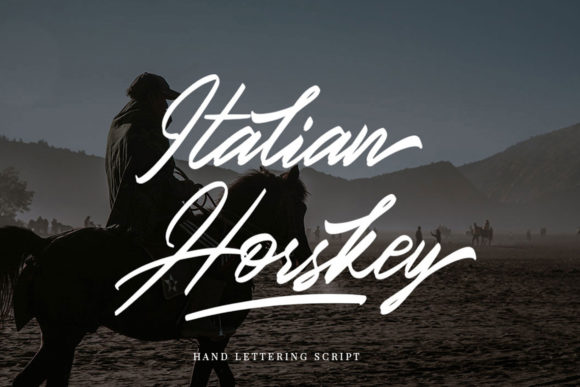
Journey into the realm of exquisite typography with Italian Horskey, a script font that exudes elegance and charm. Meticulously crafted by Mindtype Co., this font is a masterpiece that will transform your designs into works of art. Whether you're creating wedding invitations, heartfelt thank you cards, or eye-catching posters, Italian Horskey will add a touch of sophistication and personality to your creations.
Unleash your creativity and let your words dance across the page with Italian Horskey. Its graceful curves and flowing lines evoke a sense of romance and whimsy, making it the perfect choice for capturing life's special moments. Imagine your wedding vows, written in the enchanting script of Italian Horskey, becoming a cherished keepsake that you'll treasure forever.
Step into the world of professional design with Italian Horskey, the font that commands attention and leaves a lasting impression. Create business cards that exude confidence and make a statement. Design logos that stand out from the crowd, embodying the essence of your brand. Craft posters that captivate audiences, conveying your message with undeniable impact.
With Italian Horskey, the possibilities are endless. Its versatility knows no bounds, allowing you to explore a wide range of design styles and themes. Whether you're aiming for a classic and timeless look or a modern and edgy aesthetic, Italian Horskey will effortlessly adapt to your vision.
Take your designs to new heights with Italian Horskey, the font that ignites inspiration and elevates your creativity. Experience the joy of crafting designs that resonate with your audience, leaving an indelible mark on their hearts and minds. Embrace the power of Italian Horskey and embark on a creative journey like no other.